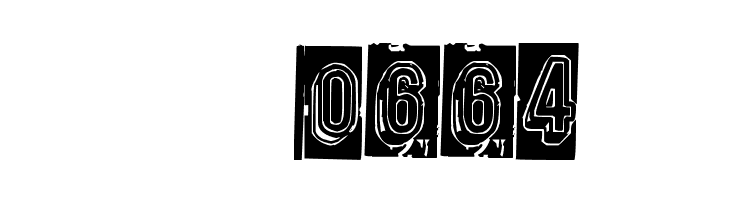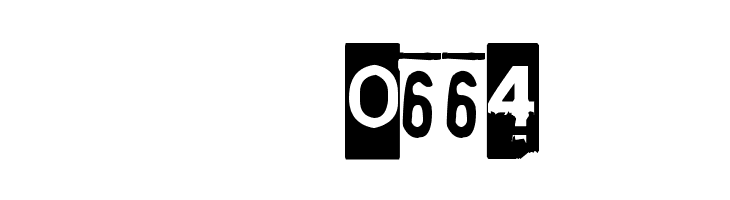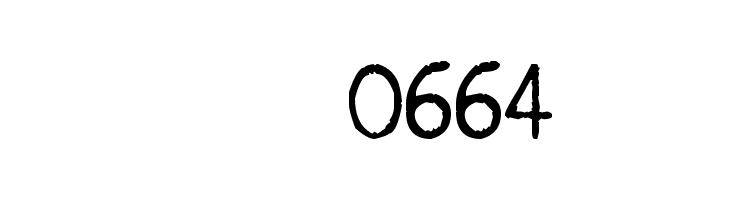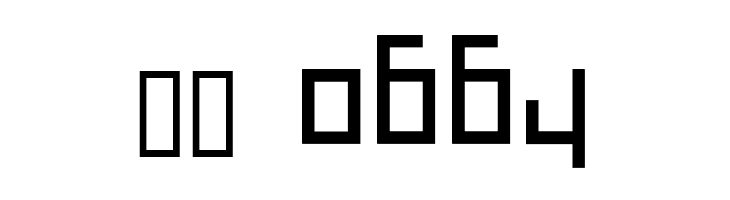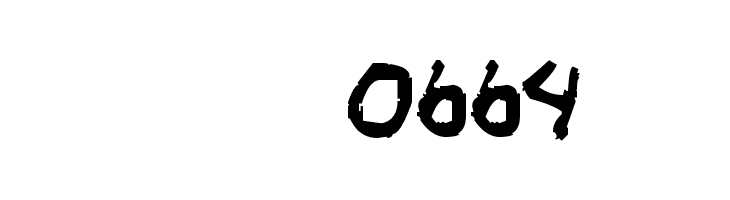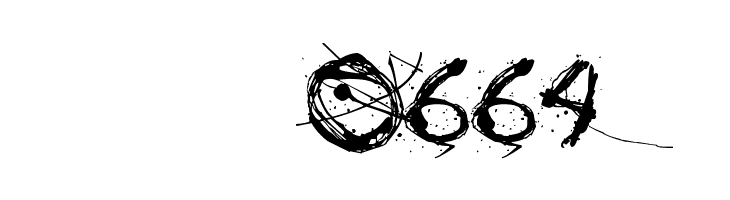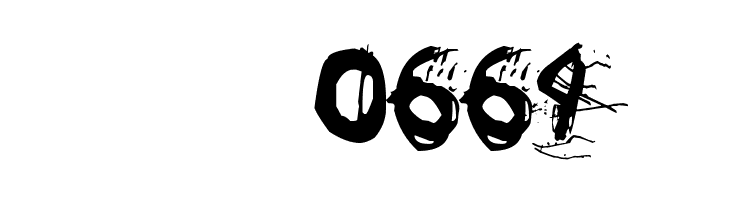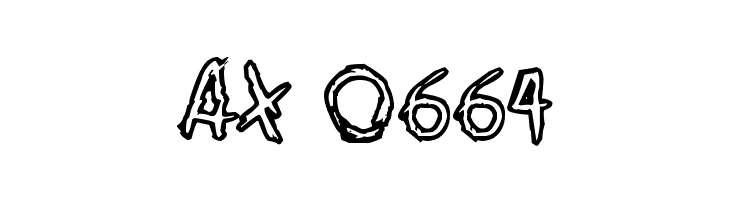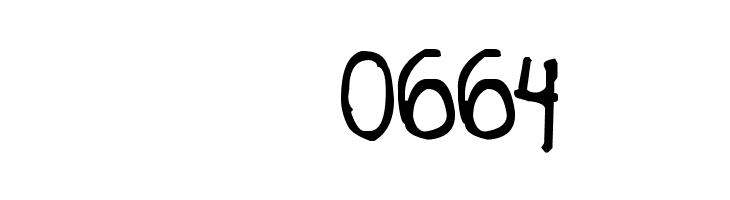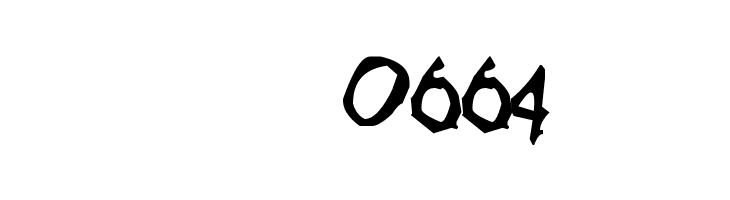
( Fonts by www.junkohanhero.com )
A bold, grunge-style font with a cut-out, distressed appearance.
( Fonts by www.junkohanhero.com )
A bold, grunge-style font with splattered, irregular edges.
( Fonts by www.junkohanhero.com )
A bold, distressed font with a rugged, vintage appearance.
( Fonts by www.junkohanhero.com )
A bold, distressed font with a rugged, hand-drawn appearance.
( Fonts by www.junkohanhero.com )
A bold, distressed decorative font with a vintage, grunge effect.
( Fonts by www.junkohanhero.com )
A bold, distressed font with a vintage, grunge texture.
( Fonts by www.junkohanhero.com )
A bold, distressed font with a vintage, hand-drawn appearance.
( Fonts by www.junkohanhero.com )
A bold, decorative font with a textured, outlined style and shadow effect.
( Fonts by www.junkohanhero.com )
Bold, outlined font with a distressed, edgy texture.
( Fonts by www.junkohanhero.com )
A bold, distressed font with a grunge, cut-out style.
( Fonts by www.junkohanhero.com )
A distressed, grungy font with a dripping paint effect.
( Fonts by www.junkohanhero.com )
An eclectic, collage-style font with mixed serif and sans-serif characters.
( Fonts by www.junkohanhero.com )
A bold, distressed typewriter-style font with a vintage, grunge aesthetic.
( Fonts by www.junkohanhero.com )
A distressed, typewriter-style font with a grunge aesthetic.
( Fonts by Julio Garay )
A bold, modern font with geometric and futuristic elements.
( Fonts by www.junkohanhero.com )
A bold, brush-style font with an expressive and dynamic appearance.
( Fonts by www.junkohanhero.com )
A chaotic, hand-drawn font with irregular, jagged strokes and a graffiti-like style.
( Fonts by www.junkohanhero.com )
A raw, edgy, hand-drawn font with jagged, dynamic characters.
( Fonts by www.junkohanhero.com )
A bold, hand-drawn font with a raw, artistic style.
( Fonts by www.junkohanhero.com )
A chaotic, grunge-style font with splattered, energetic brushstrokes.
( Fonts by www.junkohanhero.com )
A bold, expressive handwritten font with a playful and casual style.
( Fonts by www.junkohanhero.com )
A bold, hand-drawn font with an expressive and irregular style.
( Fonts by www.junkohanhero.com )
A chaotic, distressed font with bold, jagged strokes and a grunge aesthetic.
( Fonts by www.junkohanhero.com )
A bold, graffiti-inspired font with a rough, hand-drawn look.
( Fonts by www.junkohanhero.com )
A hand-drawn, artistic font with a whimsical and playful style.
( Fonts by www.junkohanhero.com )
A bold, expressive brush script font with dynamic, hand-drawn strokes.
( Fonts by www.junkohanhero.com )
A bold, hand-drawn font with an expressive and dynamic style.
( Fonts by www.junkohanhero.com )
An illustrative, collage-style decorative font with surreal and dark imagery.
( Fonts by www.junkohanhero.com )
Decorative font using cassette tape imagery.